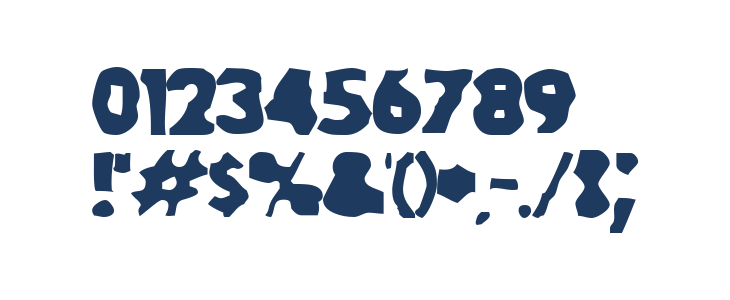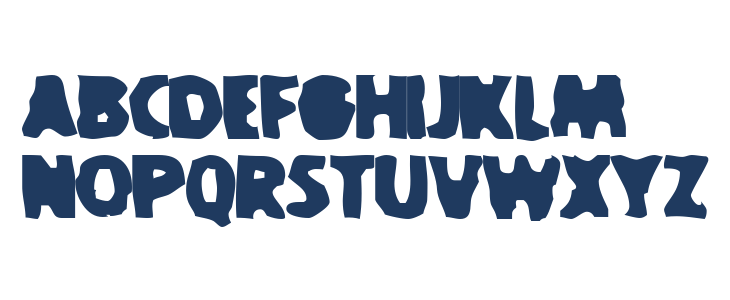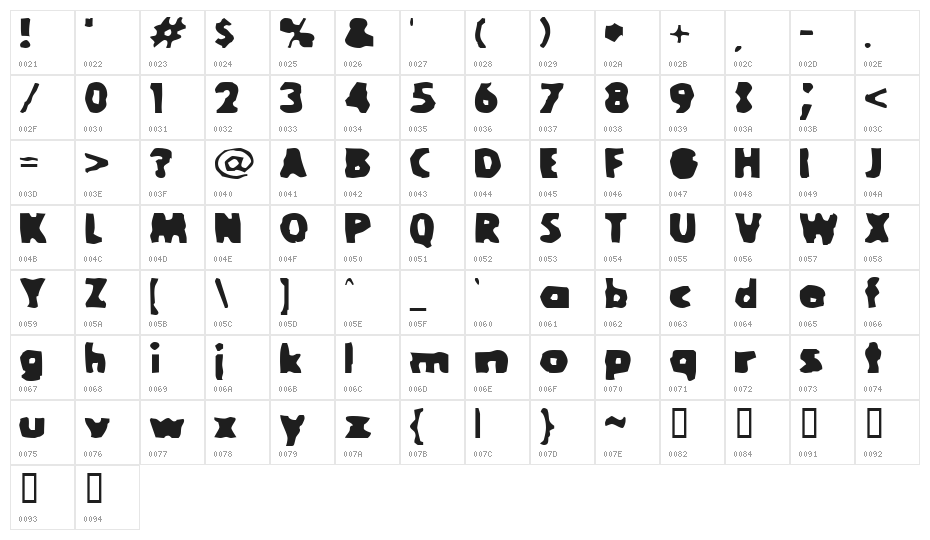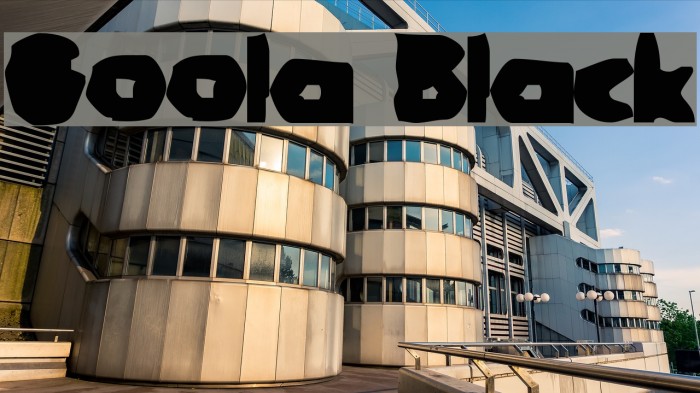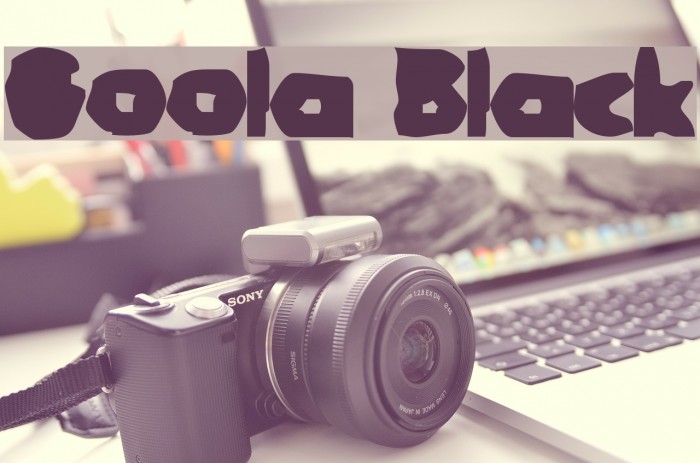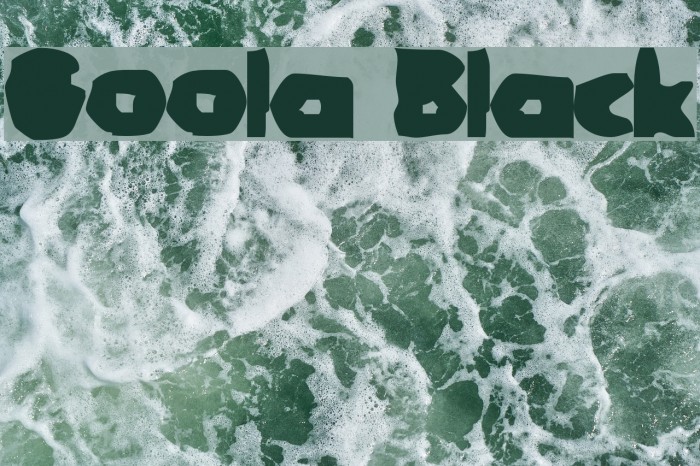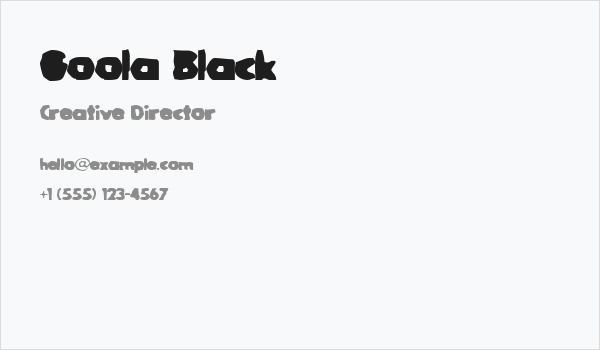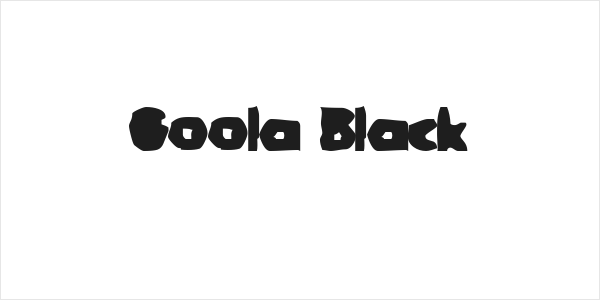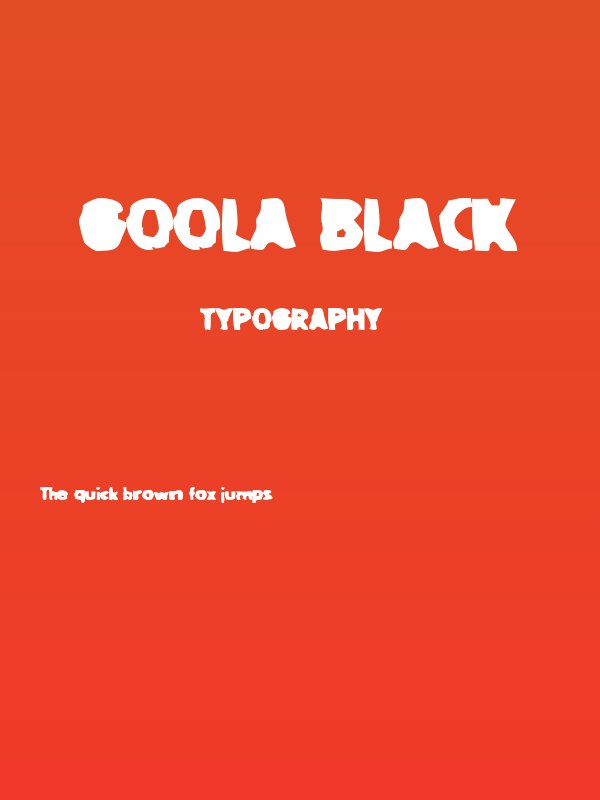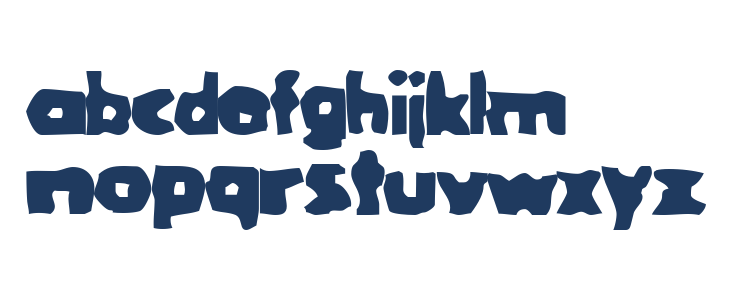
Goola Black Font
Goola Black Description
This bold and playful font features a highly irregular and chunky design, with each character exhibiting a unique, almost hand-cut appearance. The letters are heavily weighted, giving them a strong presence, while the uneven edges and varying stroke thicknesses add a whimsical and dynamic feel. The font's quirky style is reminiscent of a playful, artistic expression, making it stand out in any design. The characters are closely spaced, enhancing the boldness and impact of the text. This font is ideal for projects that require a fun and eye-catching aesthetic.
| Overall Style | Playful, Artistic |
| Proposed Projects | Great for children's book covers, playful branding, posters, and creative advertisements. |